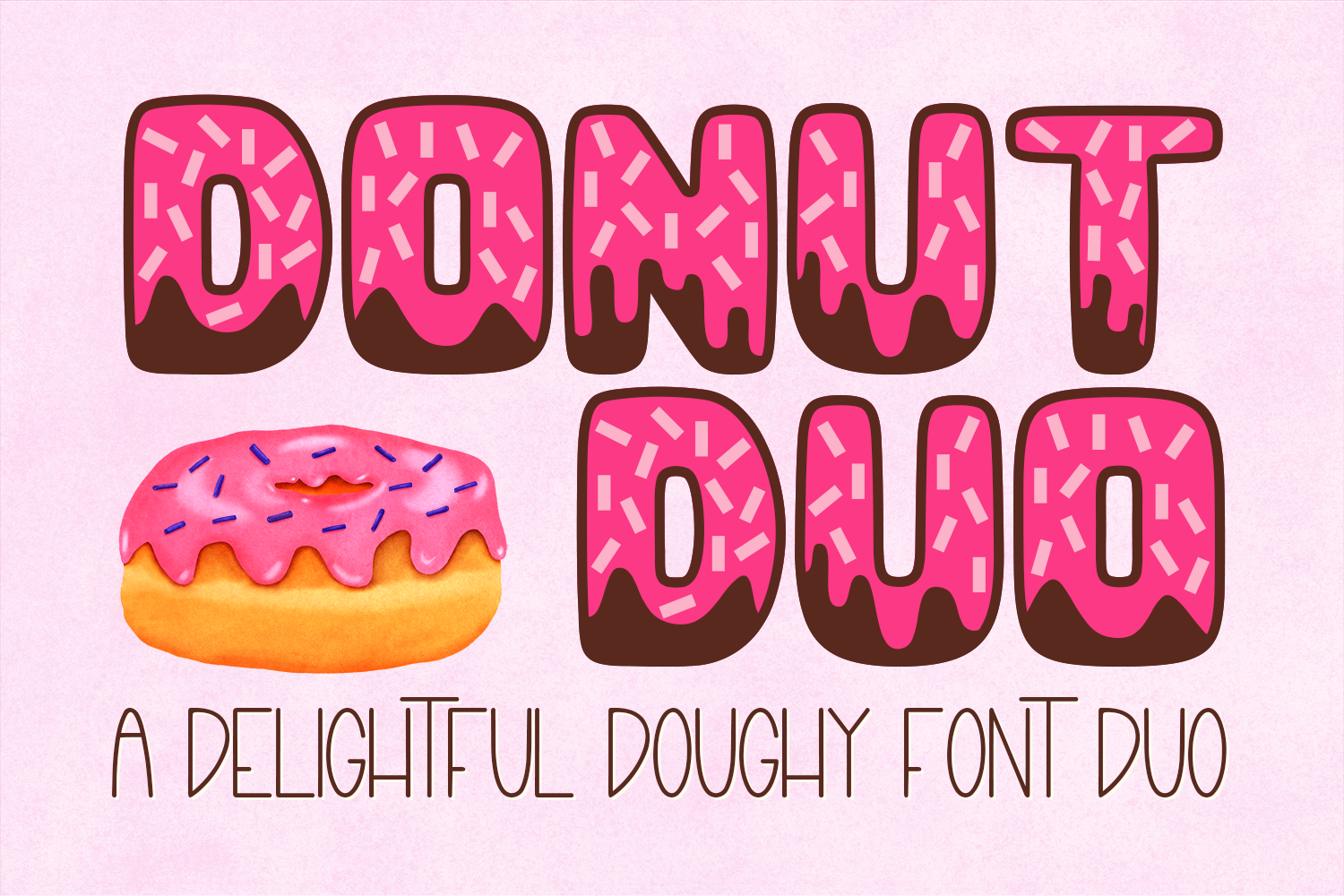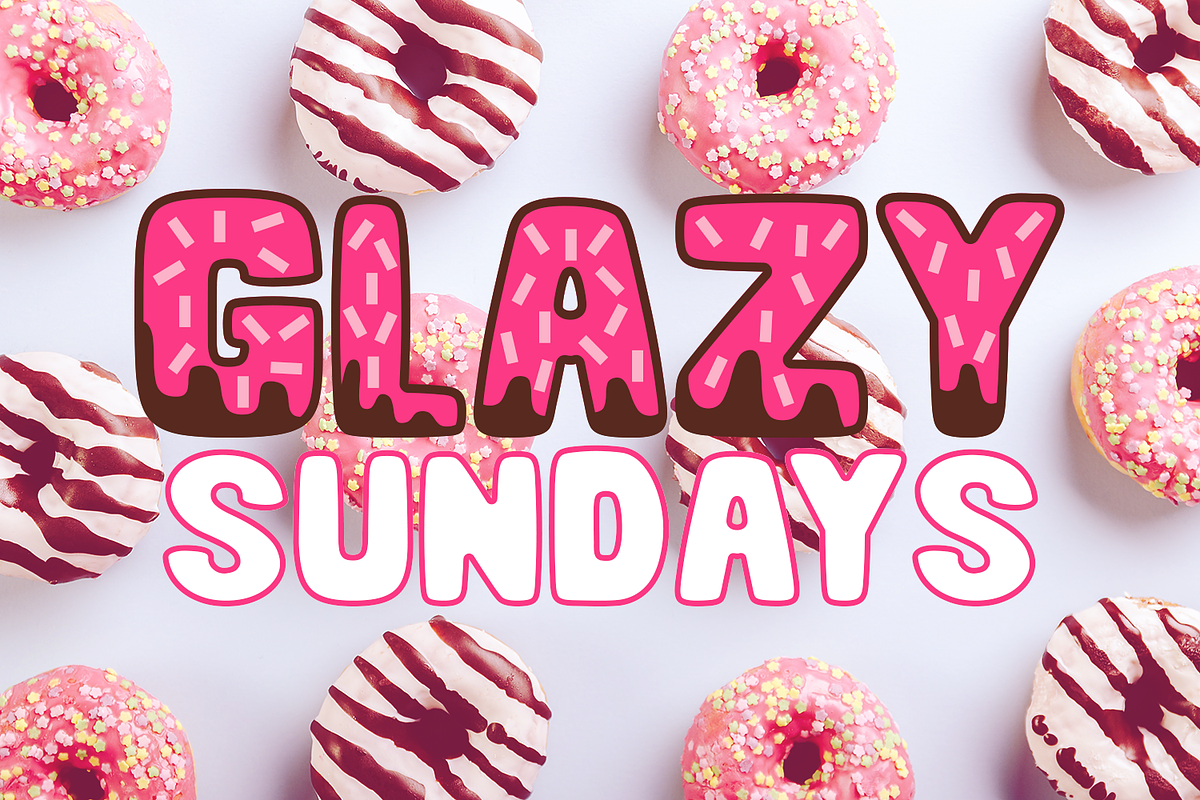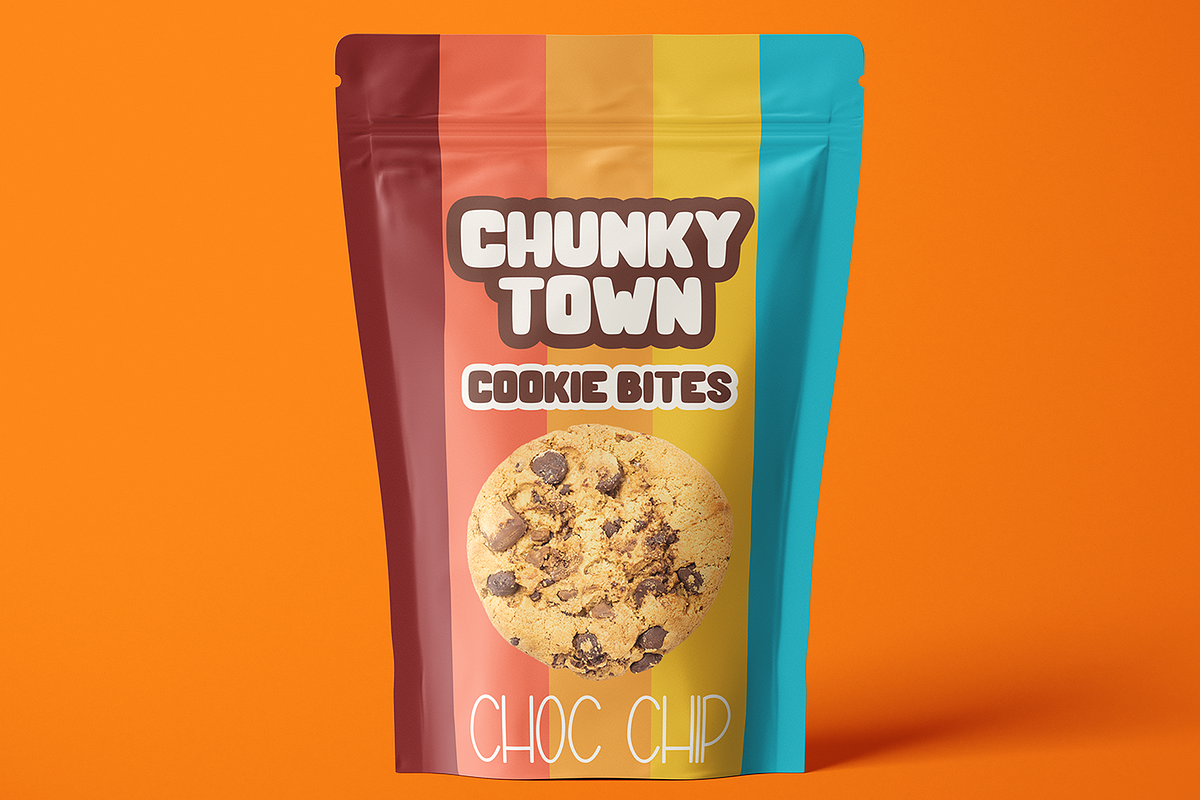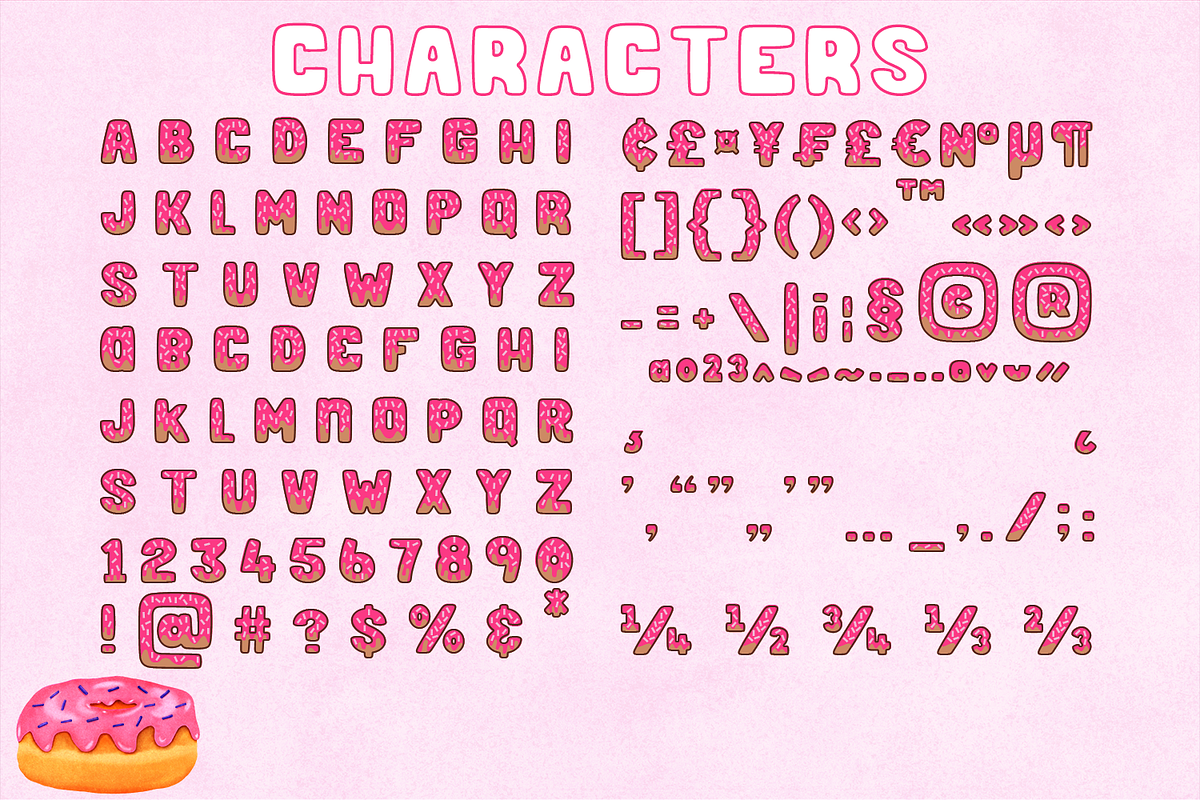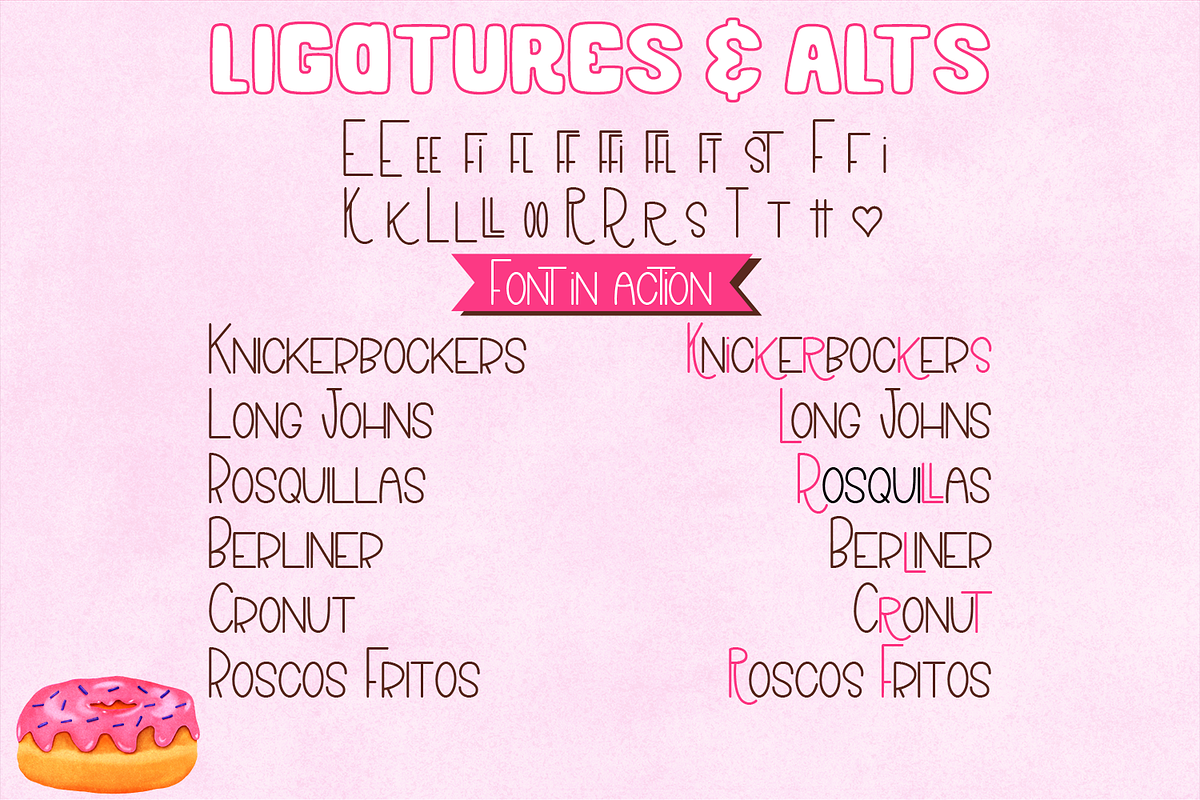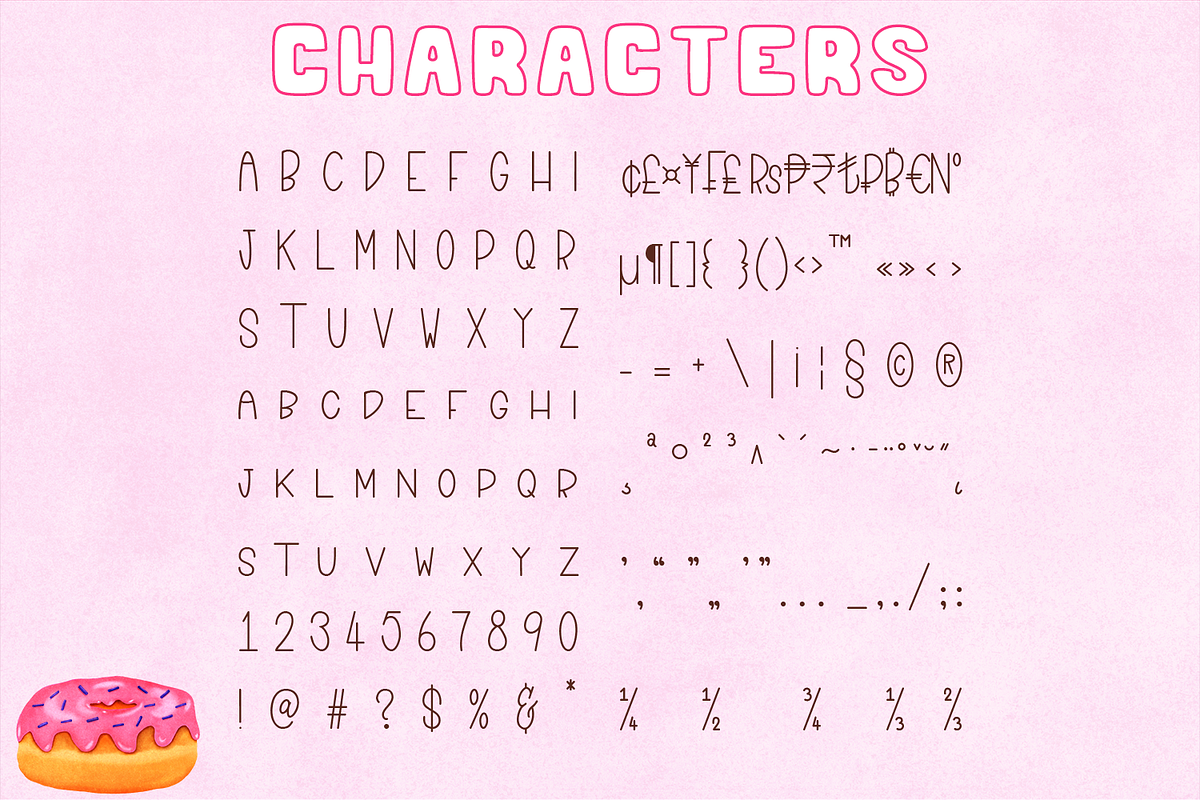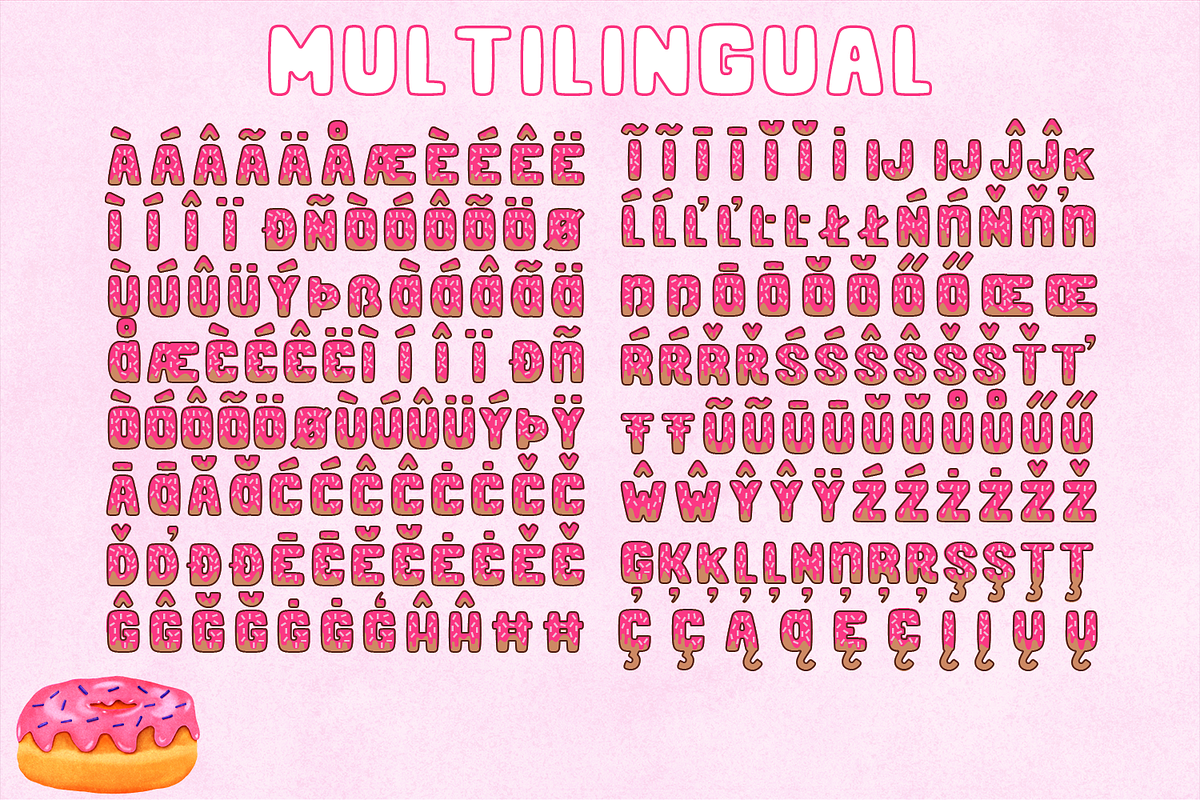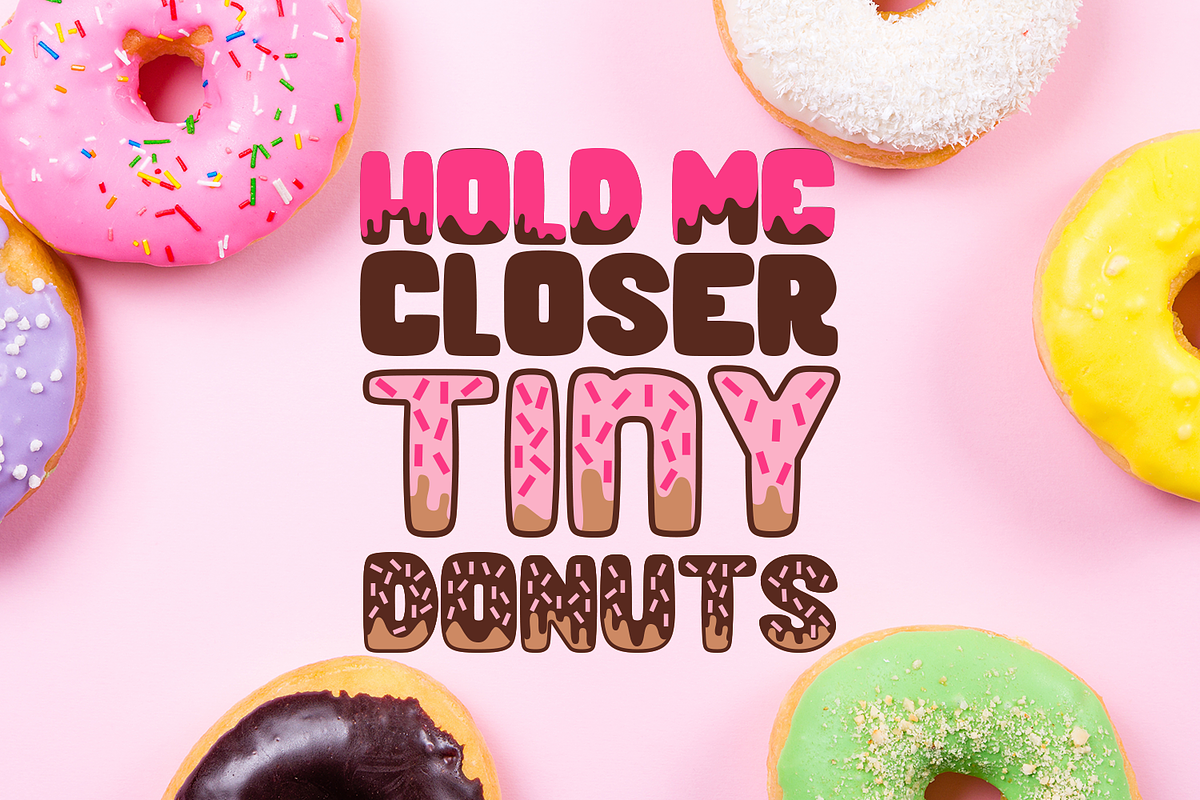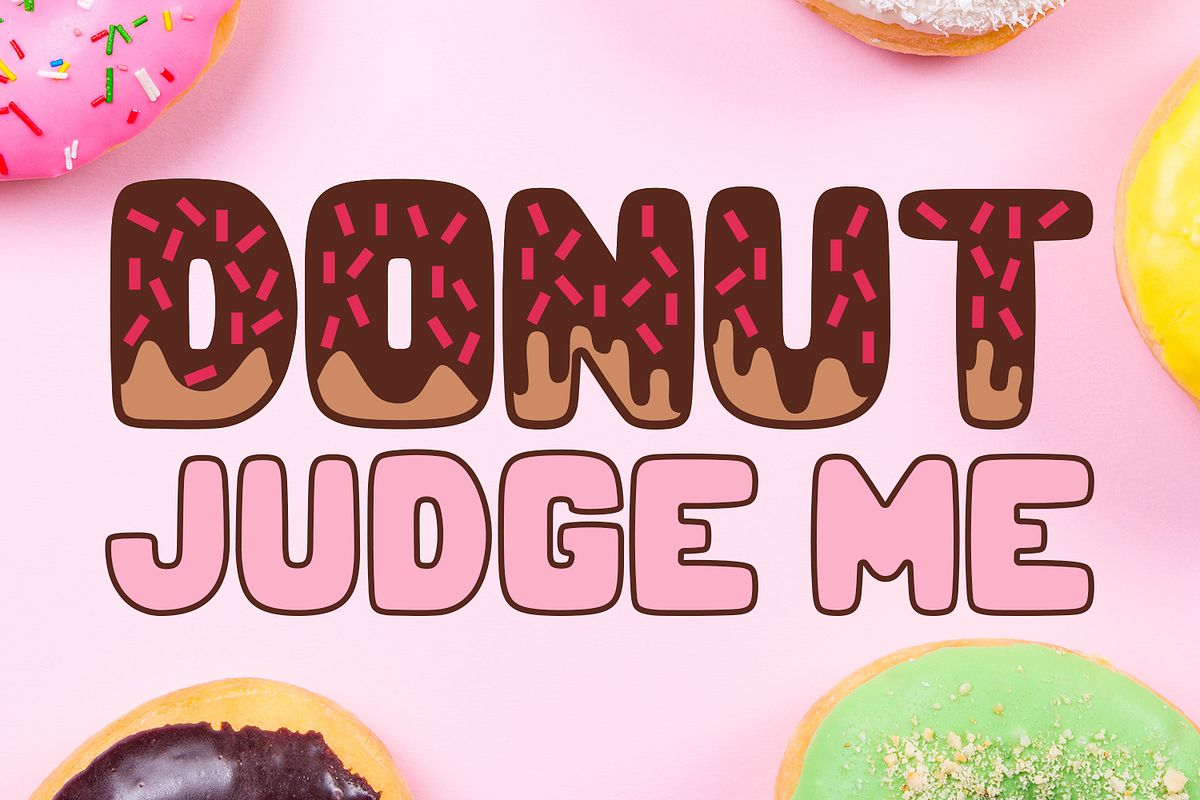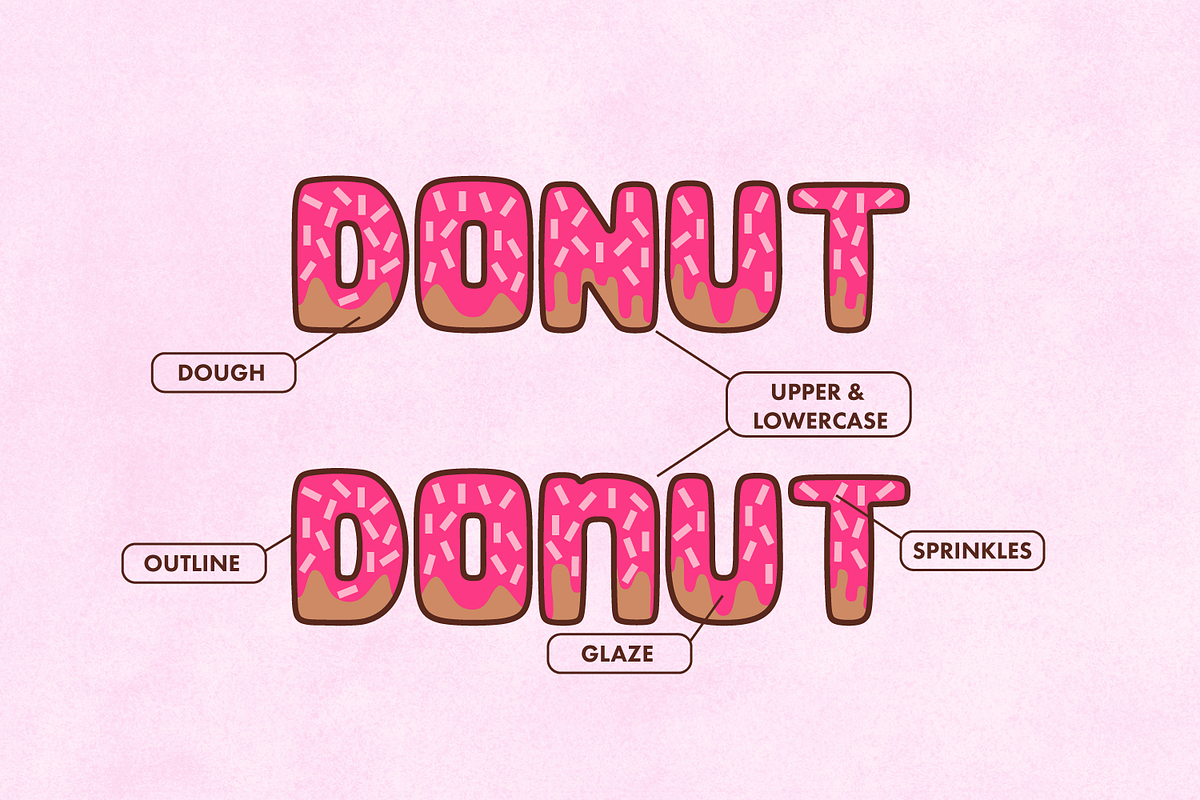
Donut Duo - a delightful font duo
Donut Duo is a font duo that pairs a chunky mixed-case layered font with 4 layers and a skinny condensed monoline font together in a delightful contrast.
Donut is a chunky doughy mixed-case font that allows you to create donut lettering instantly using layers!
Donut - Dough layer is a chunky, thick doughy mixed-case font. This font can stand alone or work with the other layers to create a novel donut lettering effect - or a spooky blood drip effect!
Donut - Outline can also be layered or stand-alone. This is a thick and sturdy outline - the lines don't disappear at a distance.
Donut - Glaze is dripping icing, designed to be layered on top of the Dough layer.
Donut - Sprinkles of course goes on top, layered over the glaze! This one is designed only as a layer to work with the rest of the system.
This font was designed to complement Long Johns.
Long Johns is a condensed, monoline sans serif mixed-case font.
Long Johns pairs and contrasts perfectly with Donut. It is an upper case font, however, the lower case is a small caps style..Included are stylistic alternates so you can use OpenType to create fun modern type.